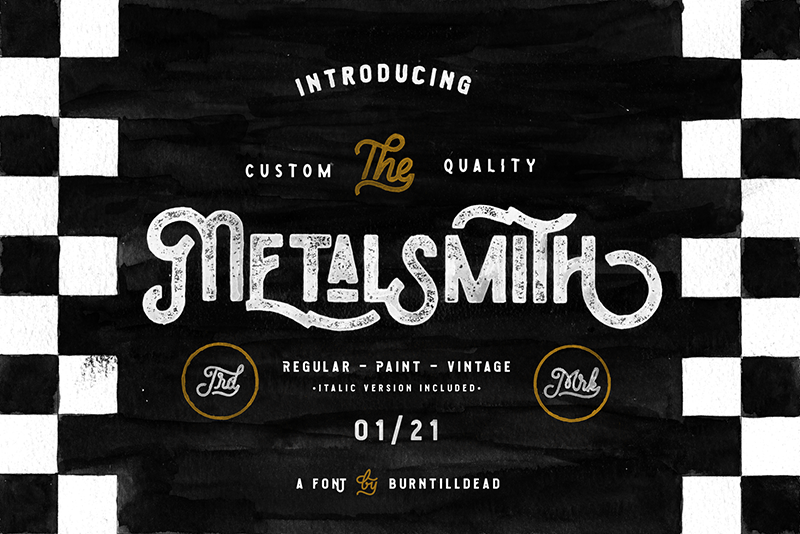
Preview and download Metalsmith Font. Created by Burntilldead Typefoundry in Fancy Retro styles with Demo license.
Say hi to �Metalsmith� font family, a stylish custom culture typeface. Started from the enthusiasm of custom motorcycles, artsy looks of hand made typefaces & illustrations, along with the freedom vibes that came with it, become the first motivation in making this Metalsmith typeface. Don't forget to purchase the commercial license here: 1. https://creativemarket.com/Burntilldead 2. https://fontbundles.net/burntilldead 3. https://www.myfonts.com/foundry/Burntilldead/ 4. https://www.creativefabrica.com/designer/burntilldead/ 5. https://elements.envato.com/user/Eric_Burntilldead |